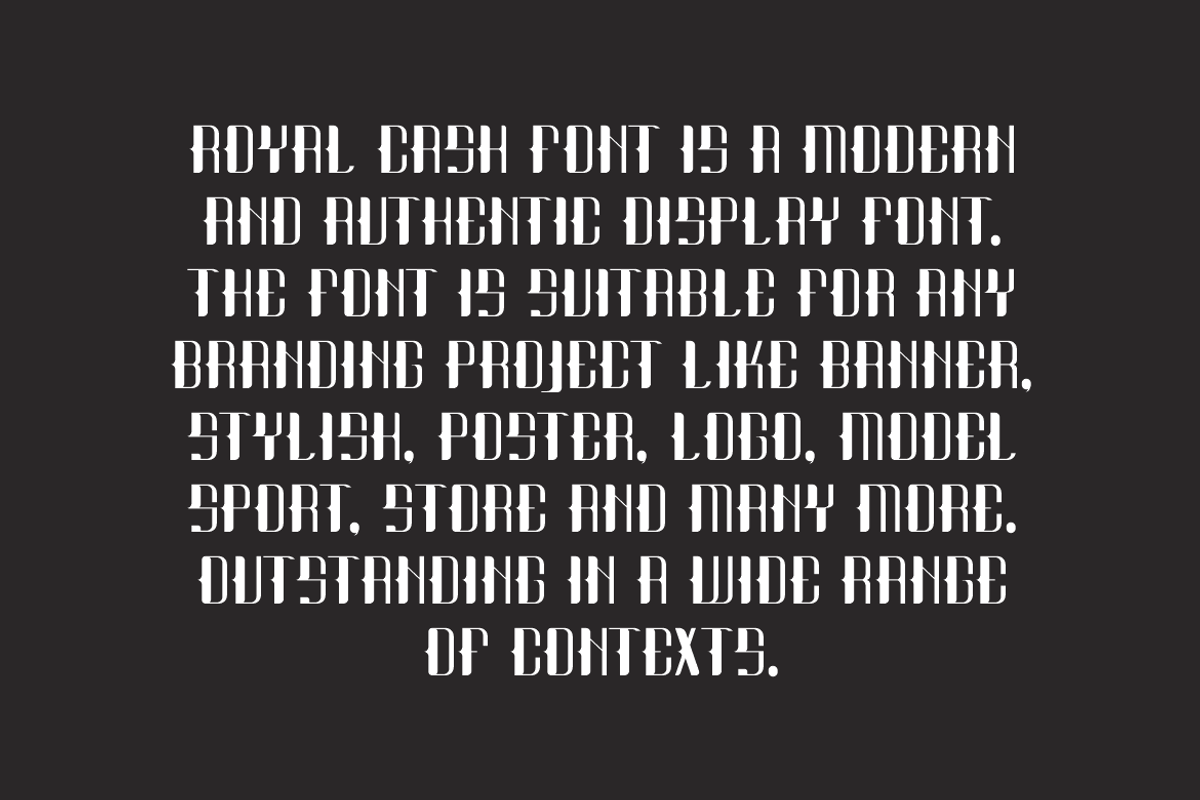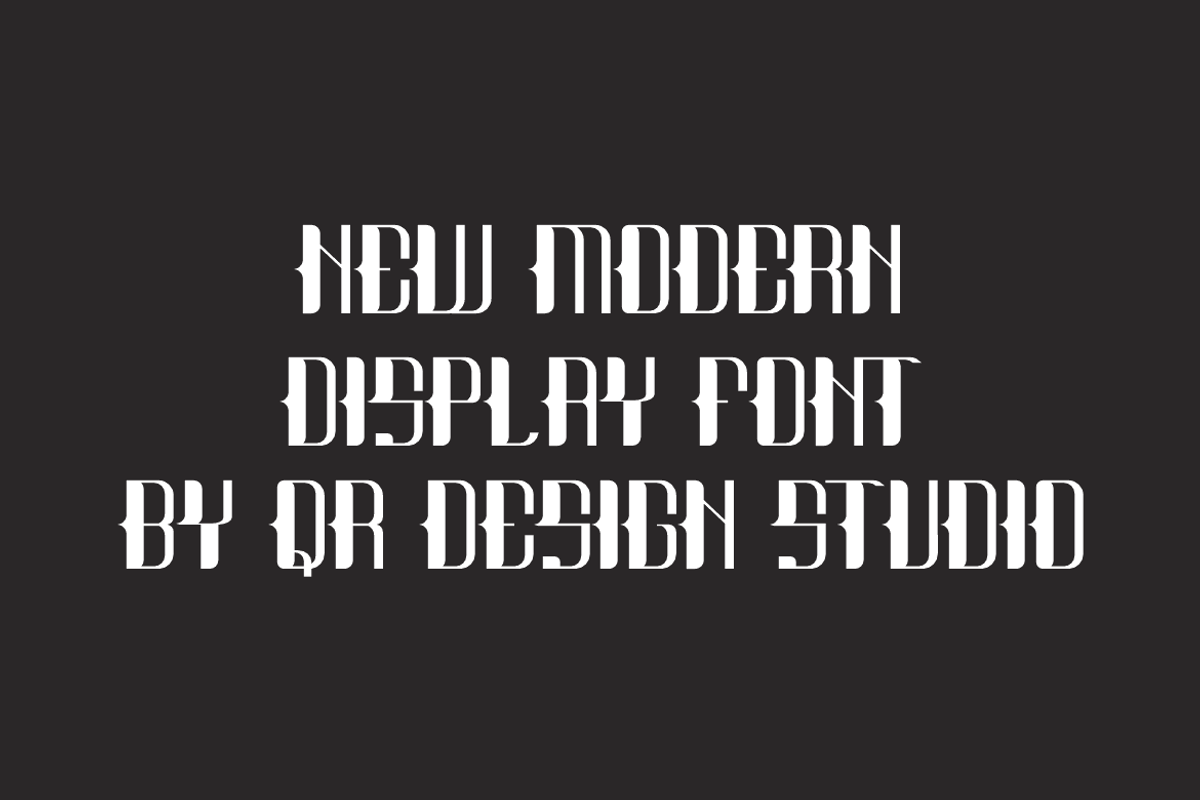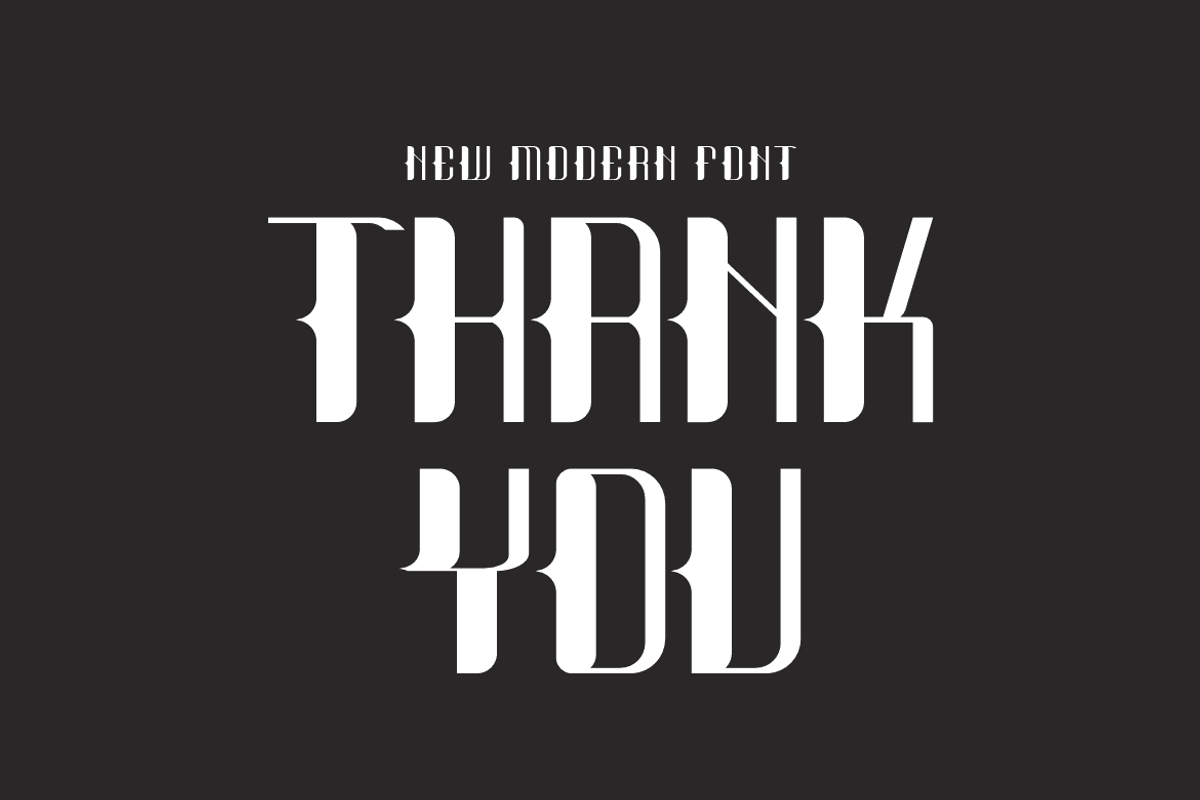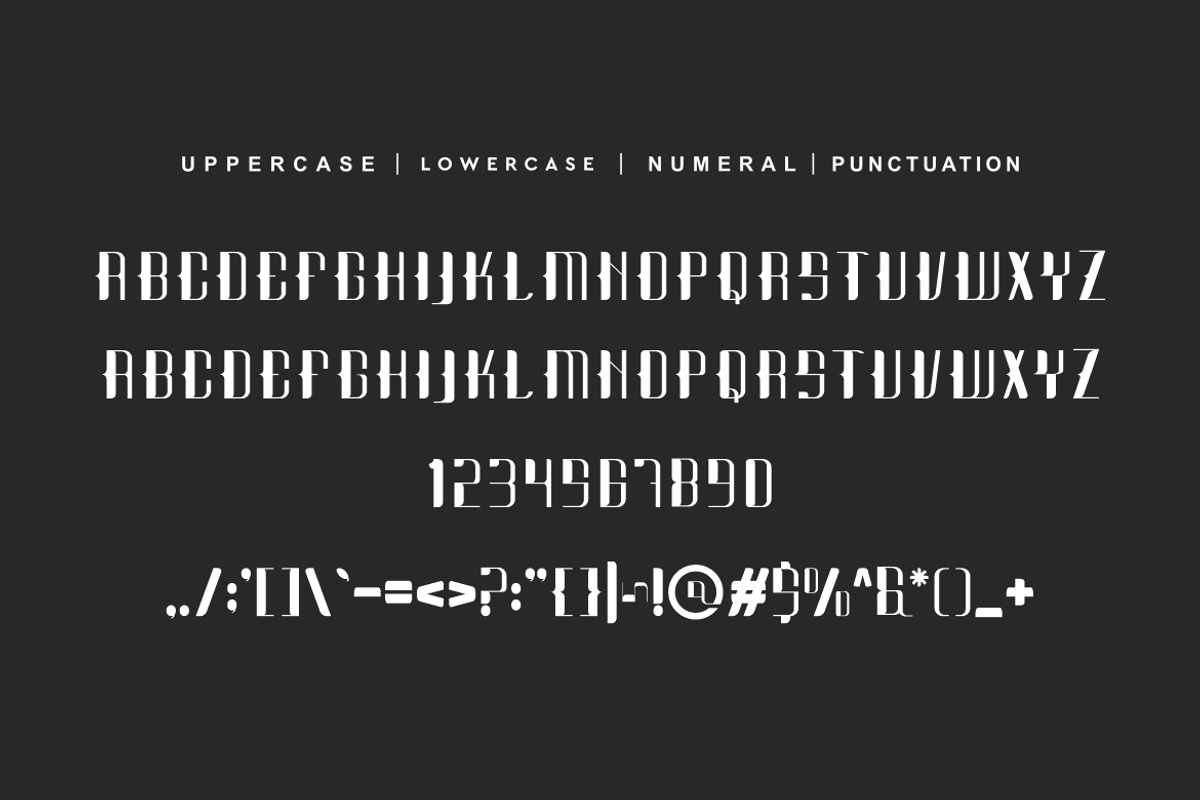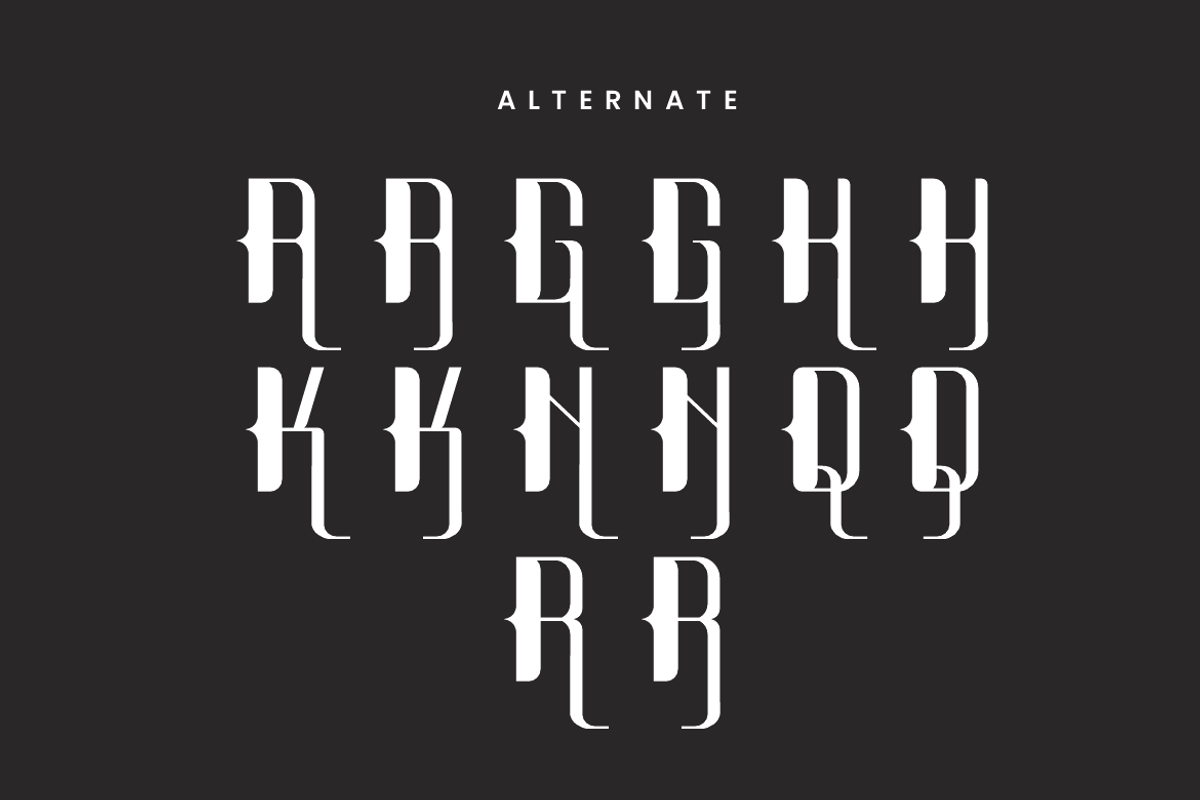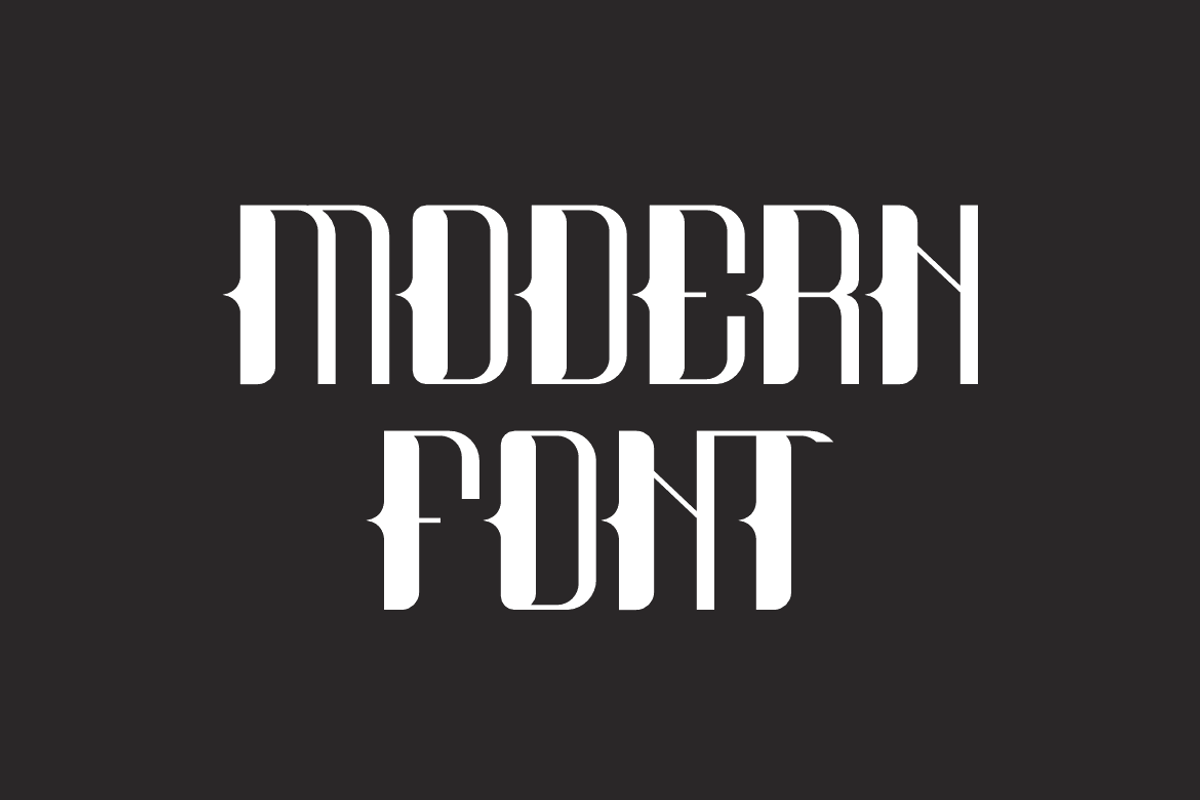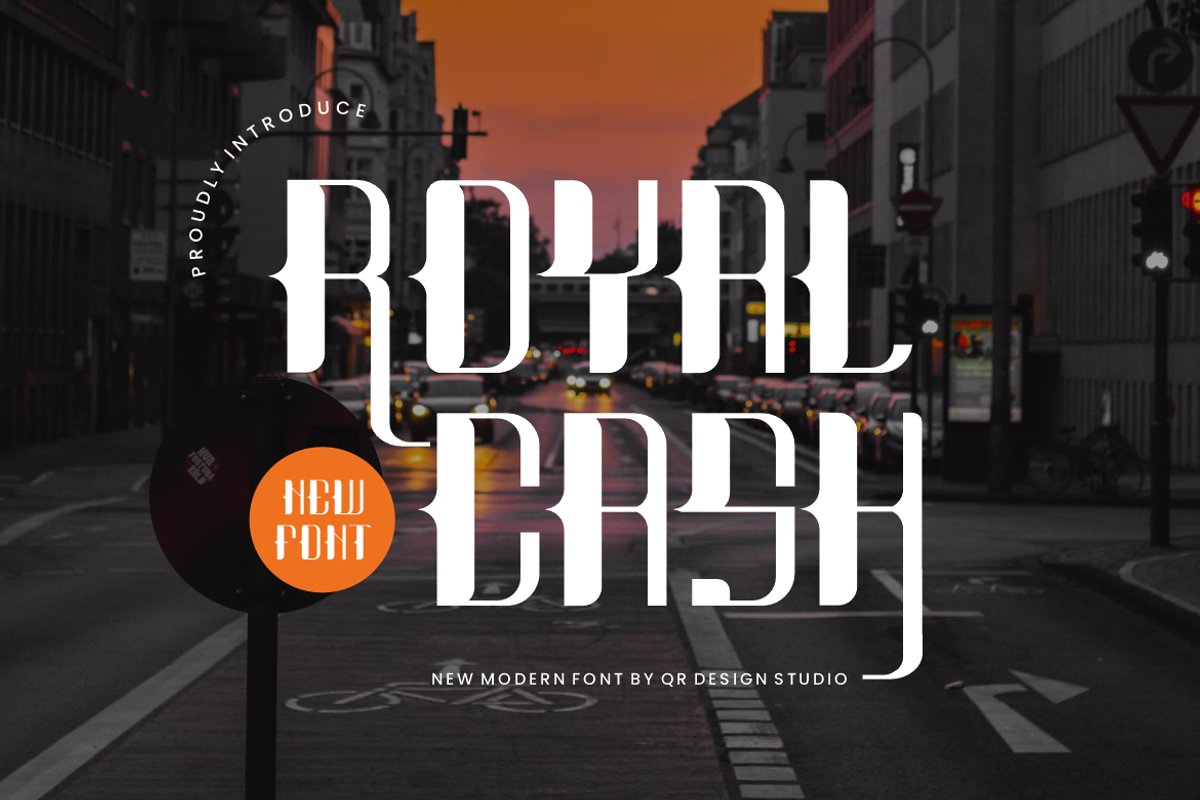
Royal Cash
Royal Cash Font is a modern and authentic display font. The font is suitable for any branding project like poster, logo, sport, and many more. Outstanding in a wide range of contexts.